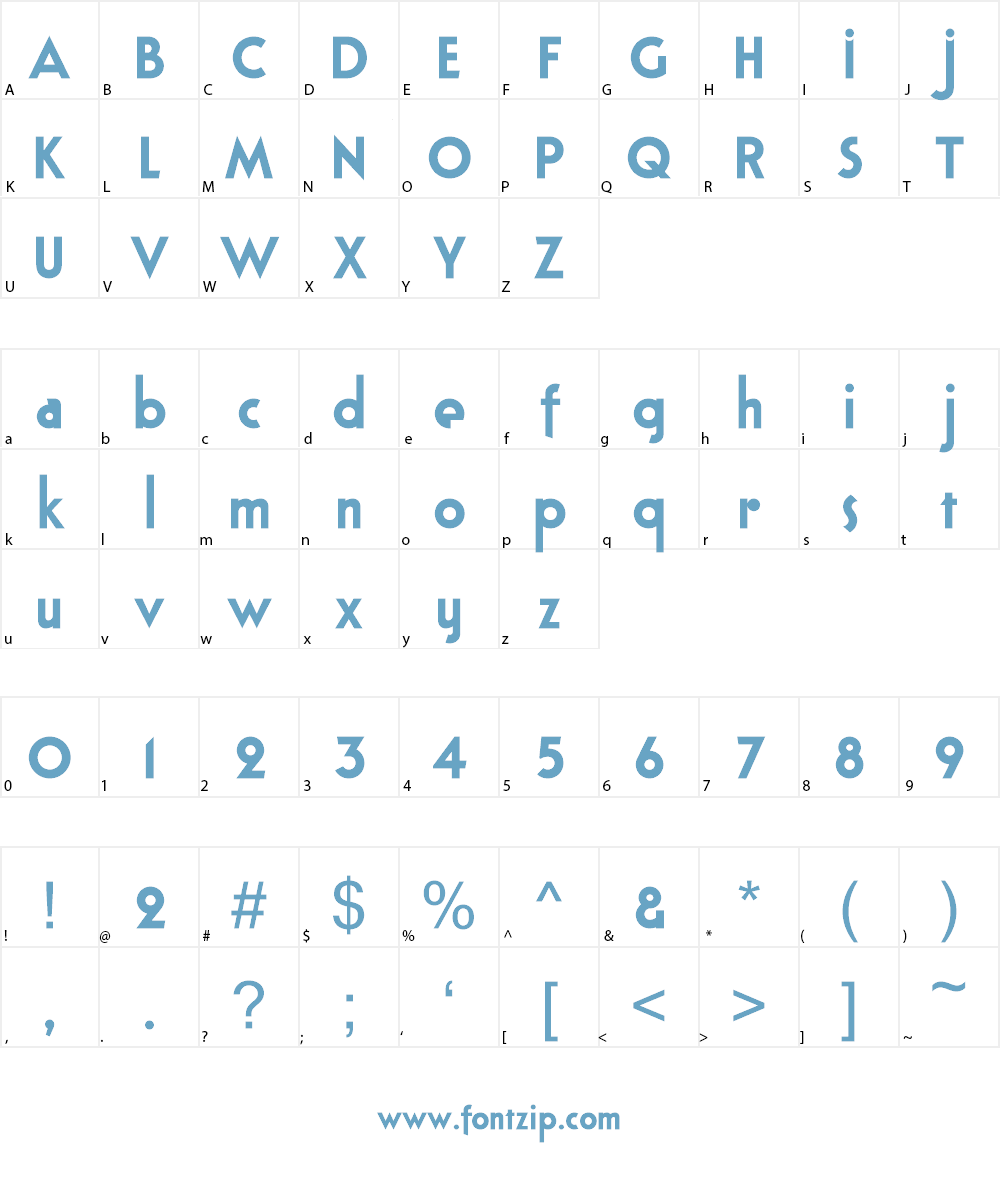
Bloxhall is an elegant art deco font family, in three styles, with:
A-Z, a-z, 0-9
Accents
Numbers and punctuation
Outline, faded and layered versions, with an extra offset variation to make layering super easy